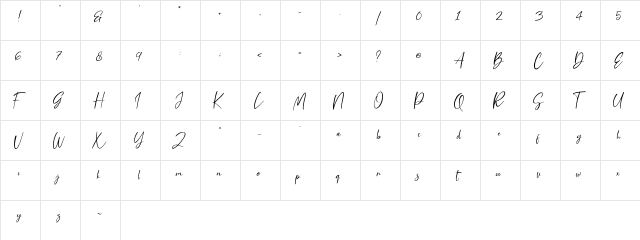
Tosca Pen Regular
Design Context for Tosca Pen Typeface
Tosca Pen is a composed and adaptable typeface that performs quietly and consistently across a wide range of design contexts.